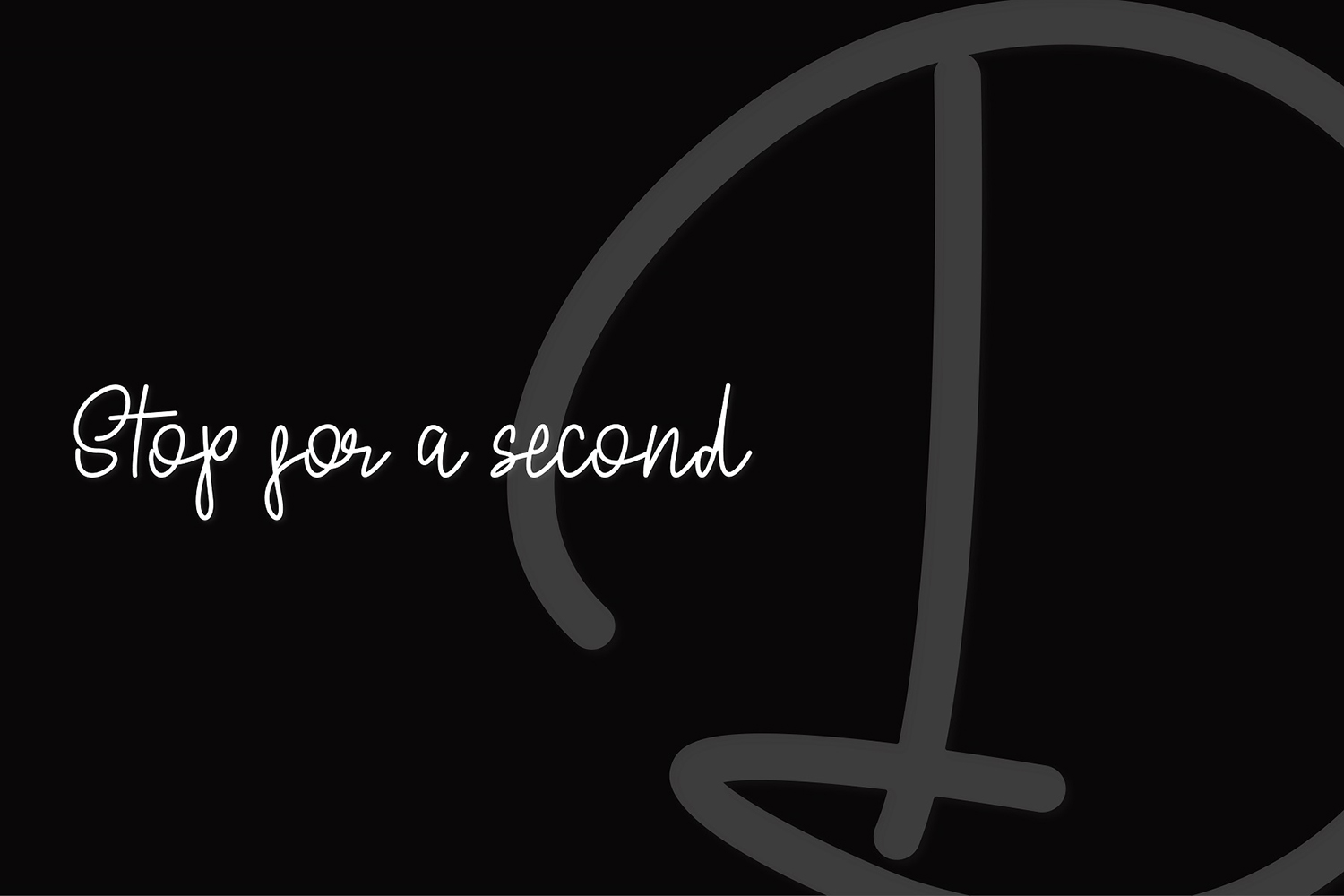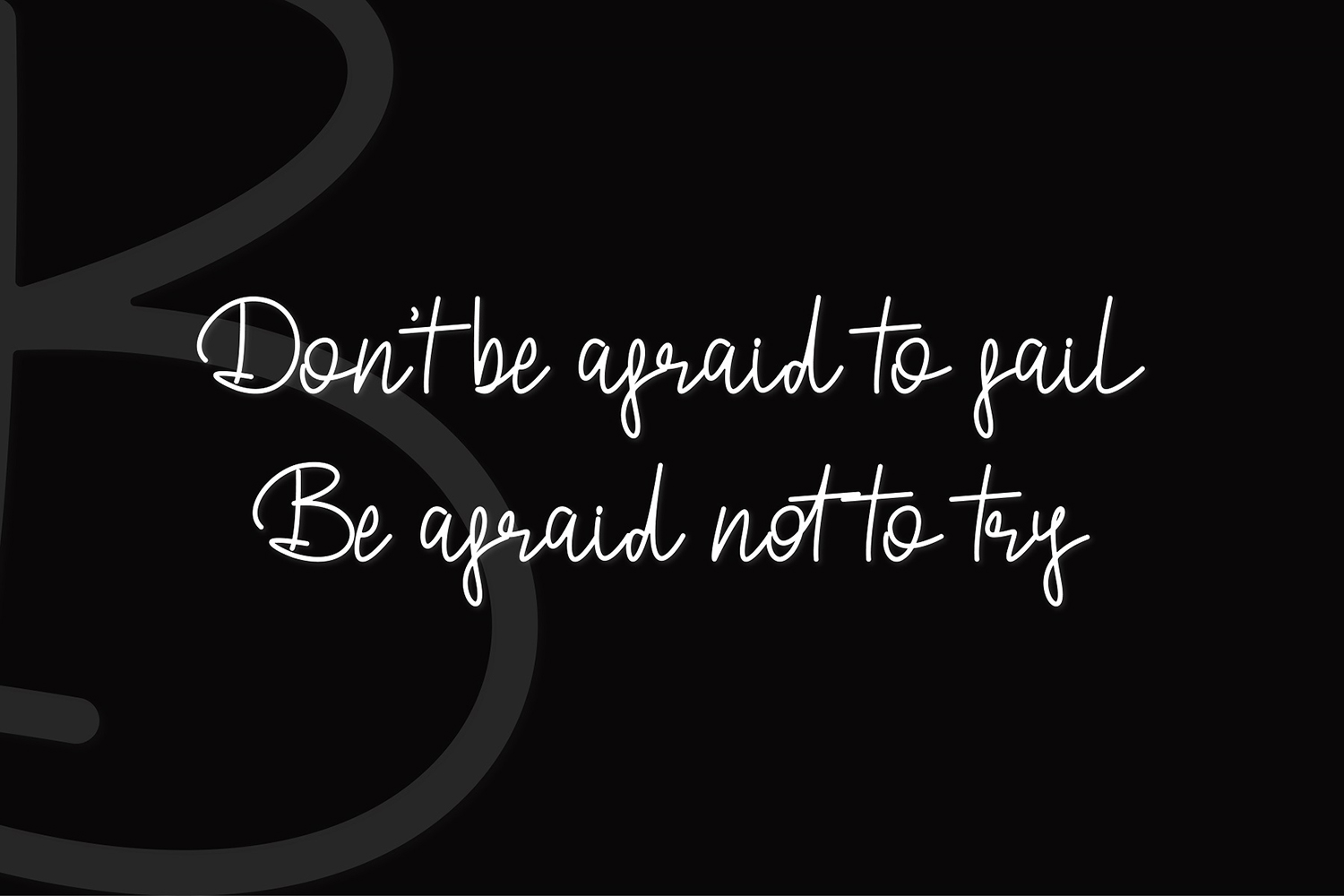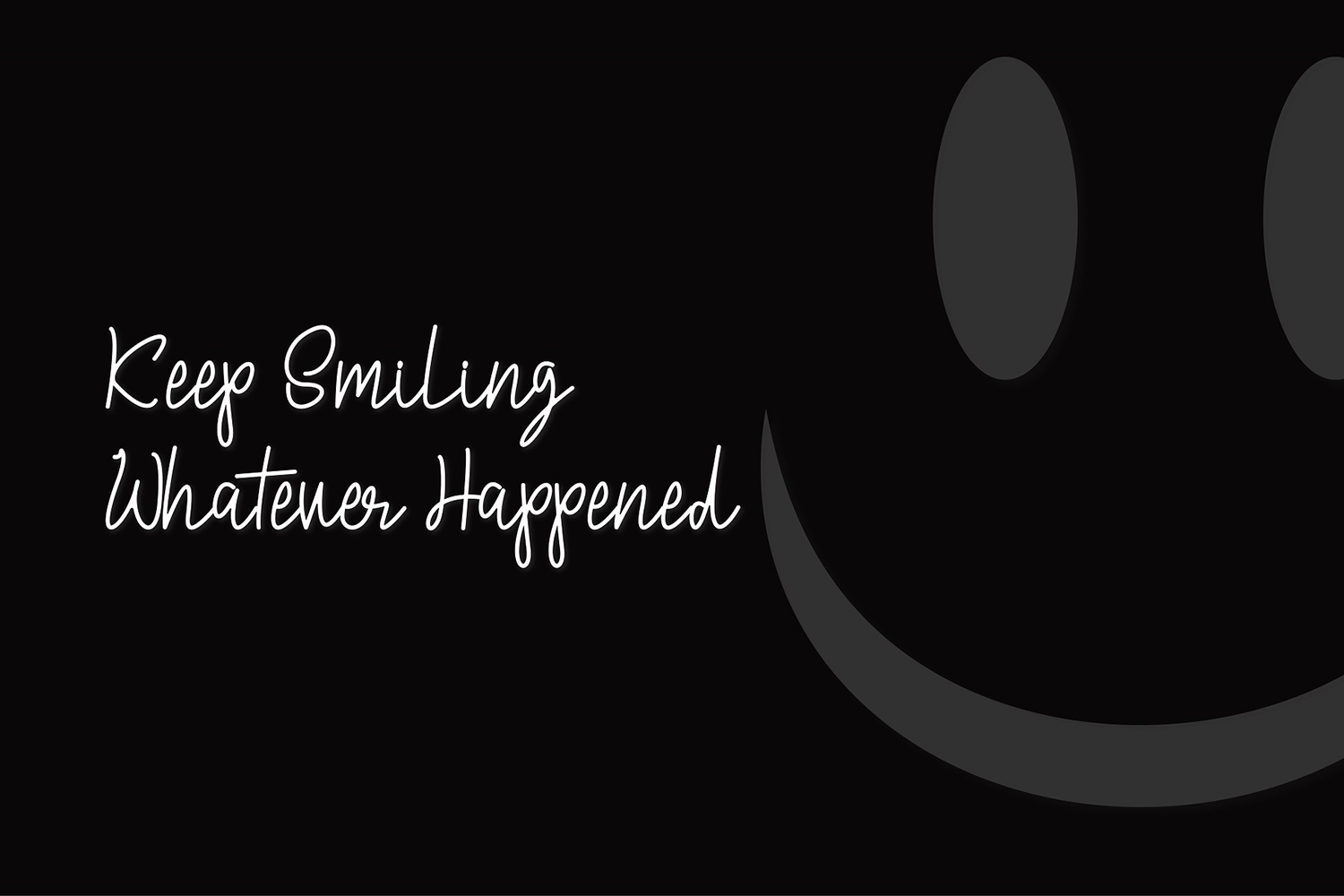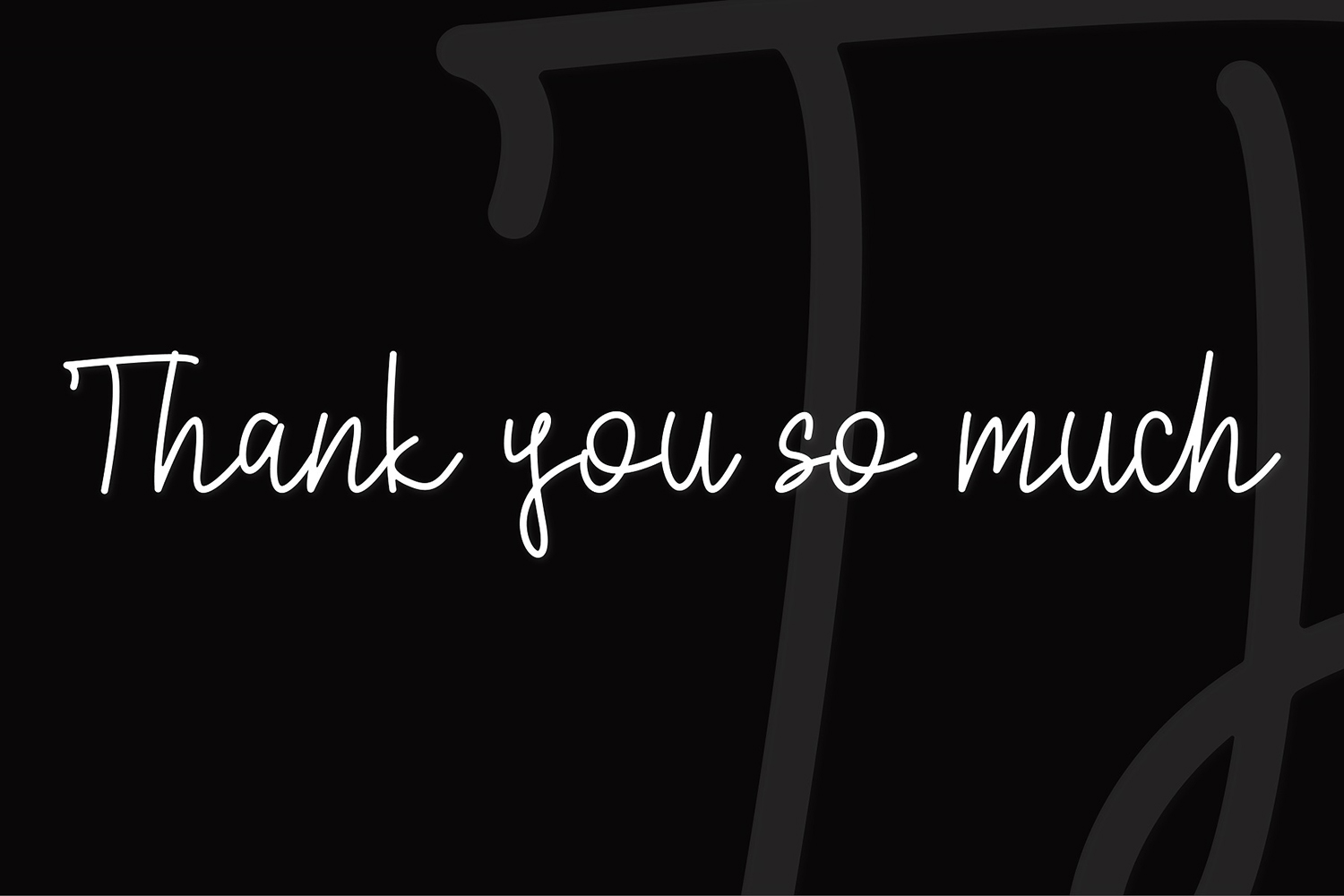
Ditho Free Font
Ditho Free Font is suitable for social media posts, advertisements, logos & branding, invitations, product design, photography, watermarks, labels, wedding designs, product packaging, any event that requires handwriting. This free typeface was designed by talented Mifiq. If you like it don’t forget to check out the full version.